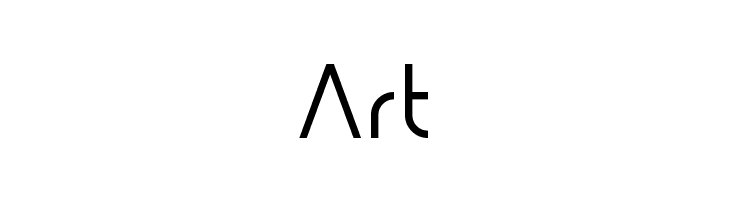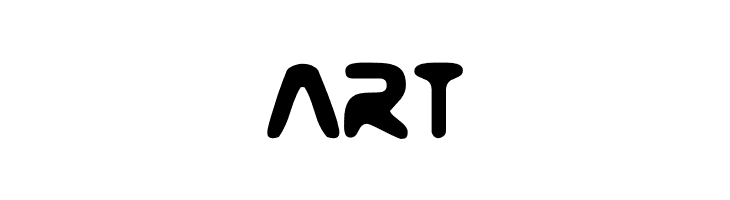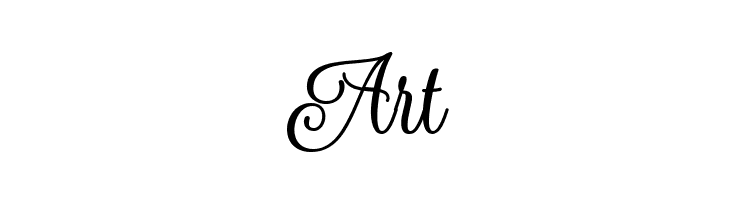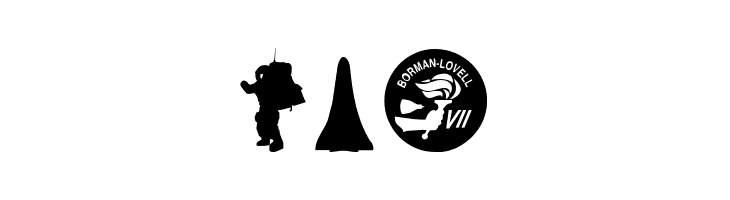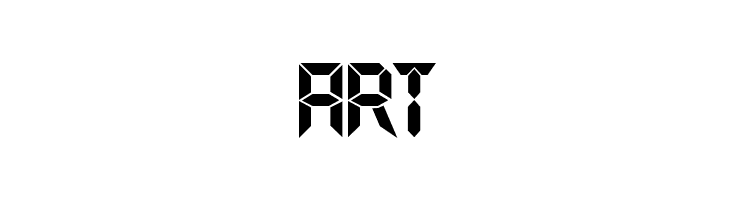
A bold, geometric font with a modern, industrial style.
A modern, geometric font with narrow, angular characters and a futuristic style.
A flowing, cursive font with elegant, looping strokes and a handwritten appearance.
A decorative script font with elegant loops and swirls, perfect for artistic projects.
A playful, handwritten-style font with bold, rounded characters.
A modern, geometric font with rounded edges and excellent readability.
A symbolic font featuring NASA and space exploration icons.